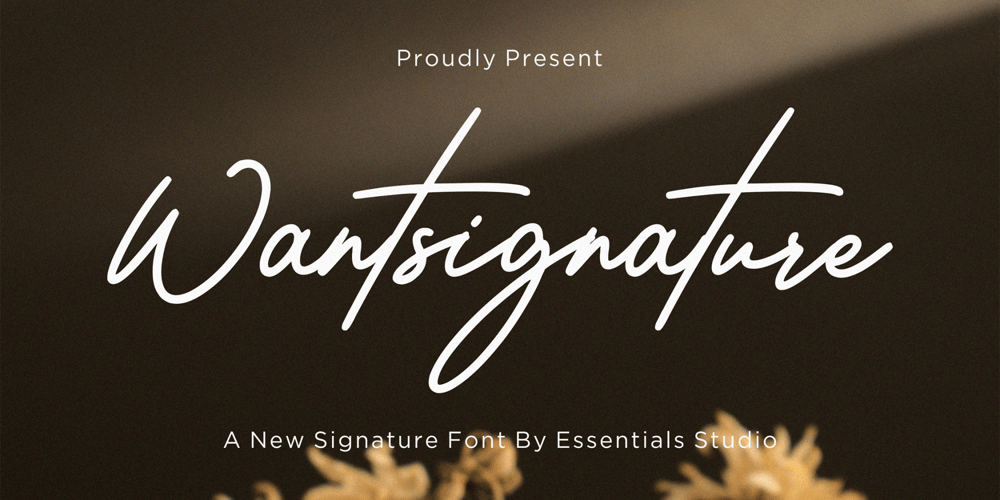
Wantsignature Font Family was designed by Sulthan Mada Maulana Tsani and published by Essentials Studio. Wantsignature contains 1 styles and family package options. Wantsignature is a stylish, luxurious signature font. It is perfect for product packaging, Corporate Identity, Logo, branding projects, magazines, social media, weddings, and more.